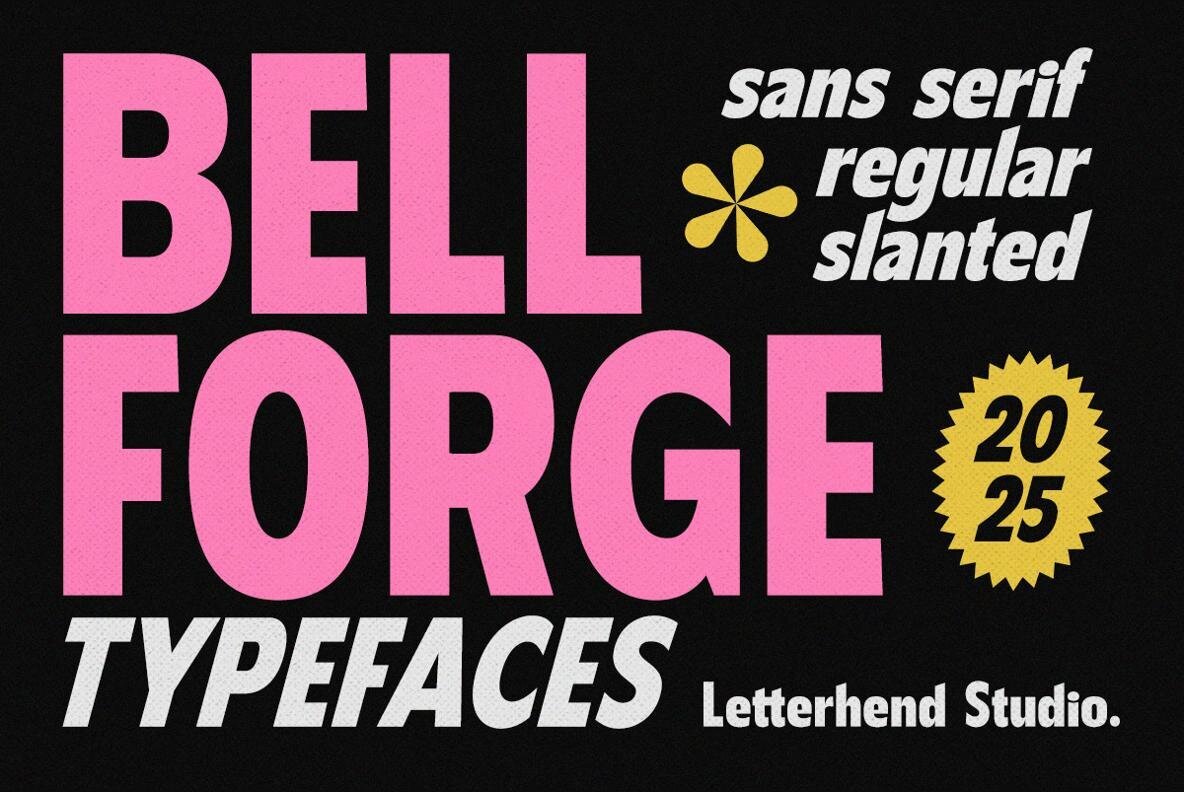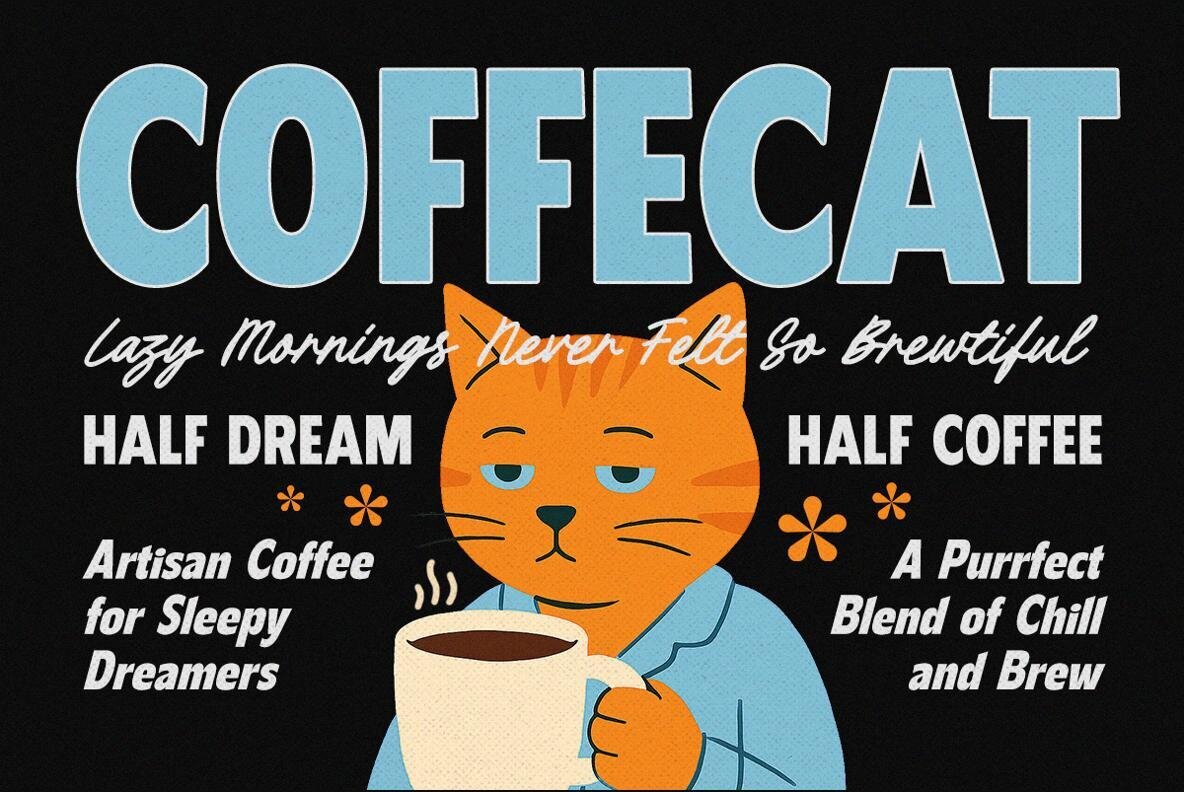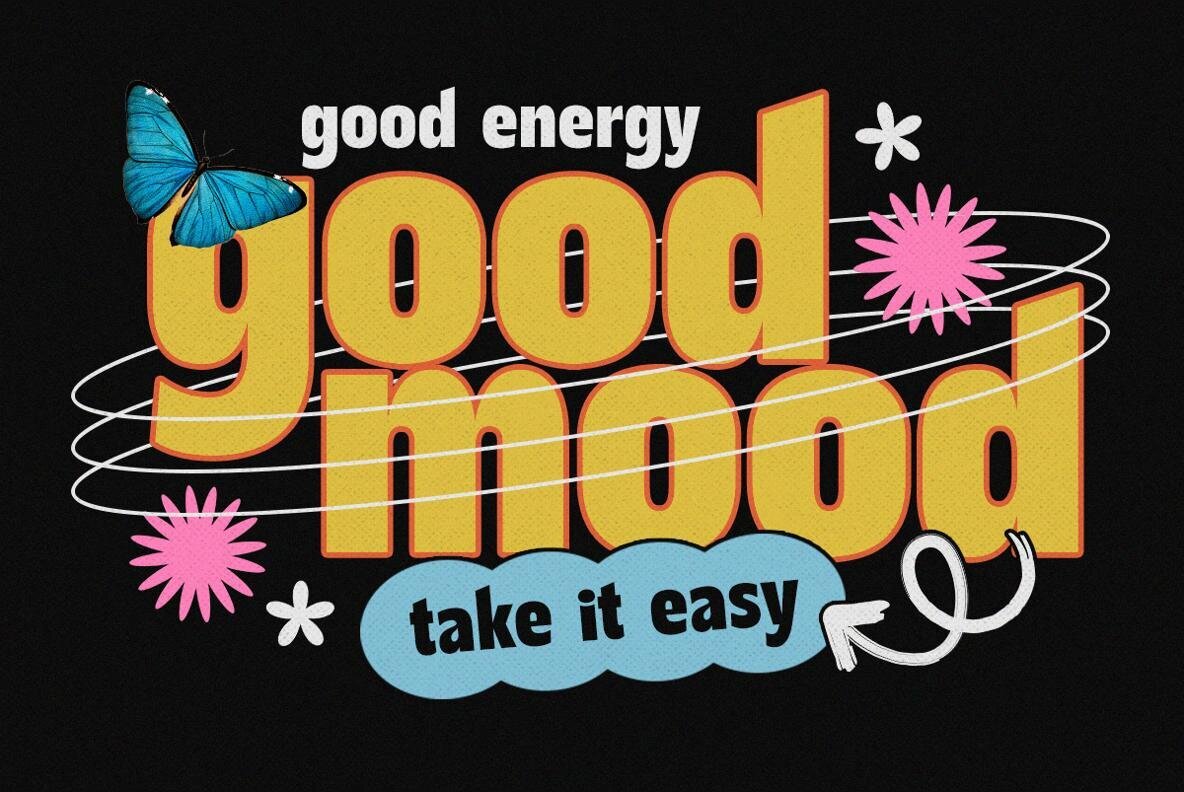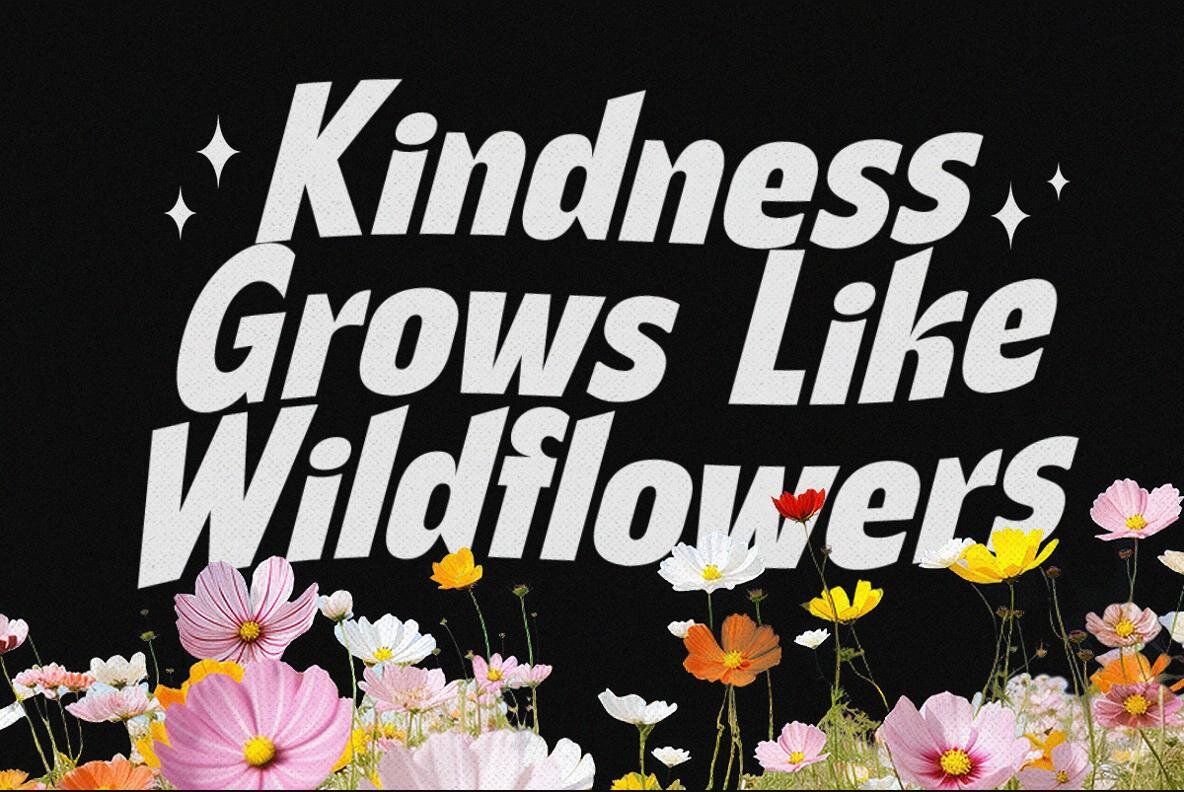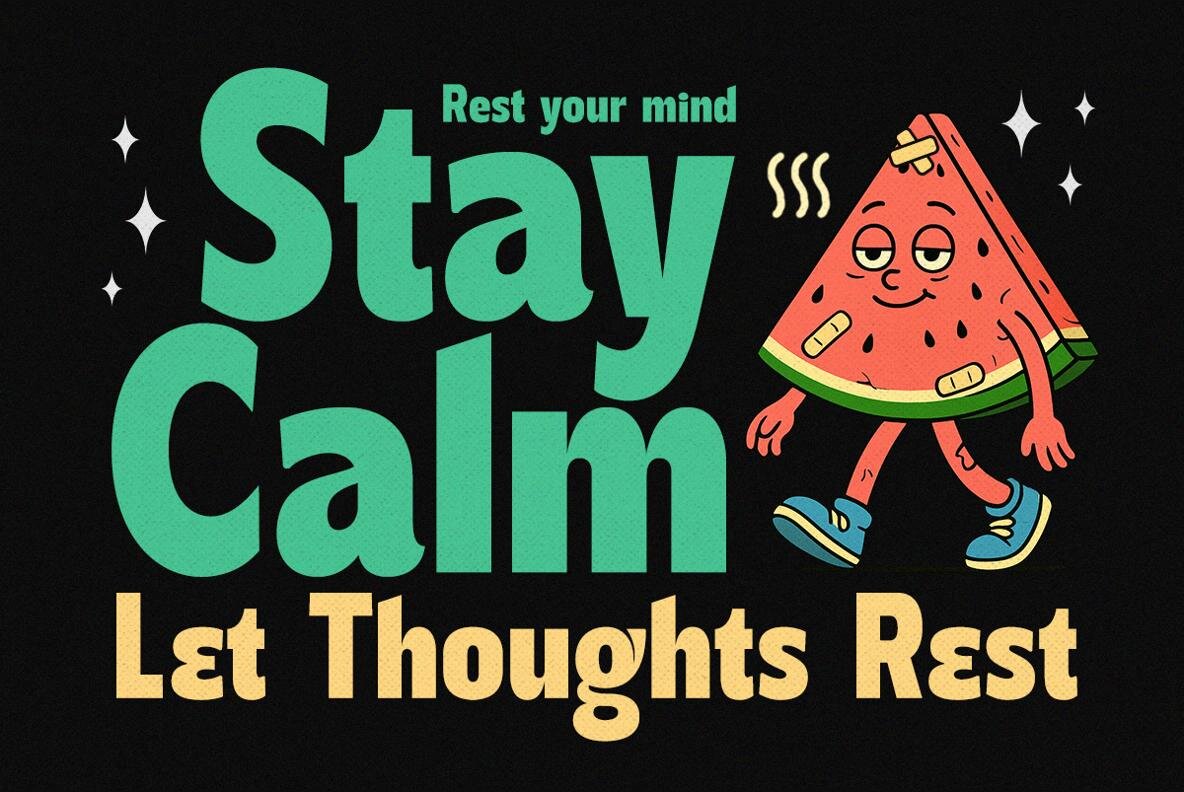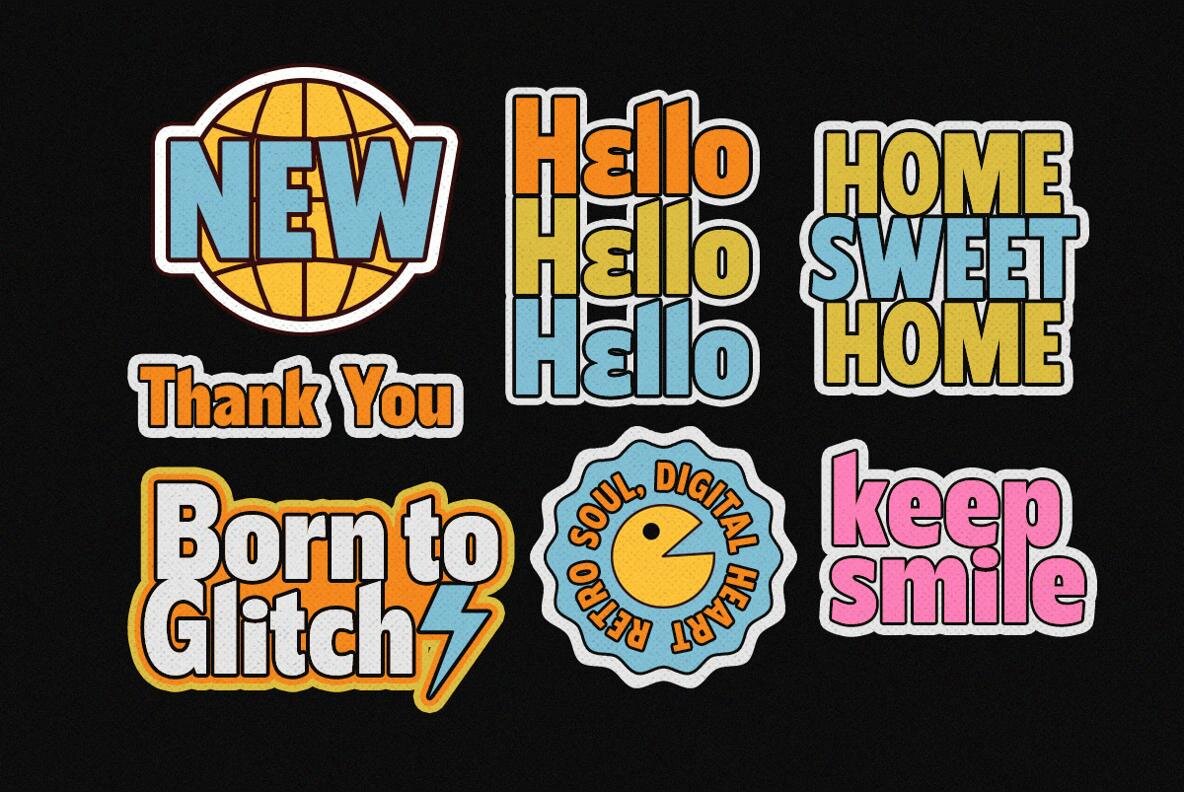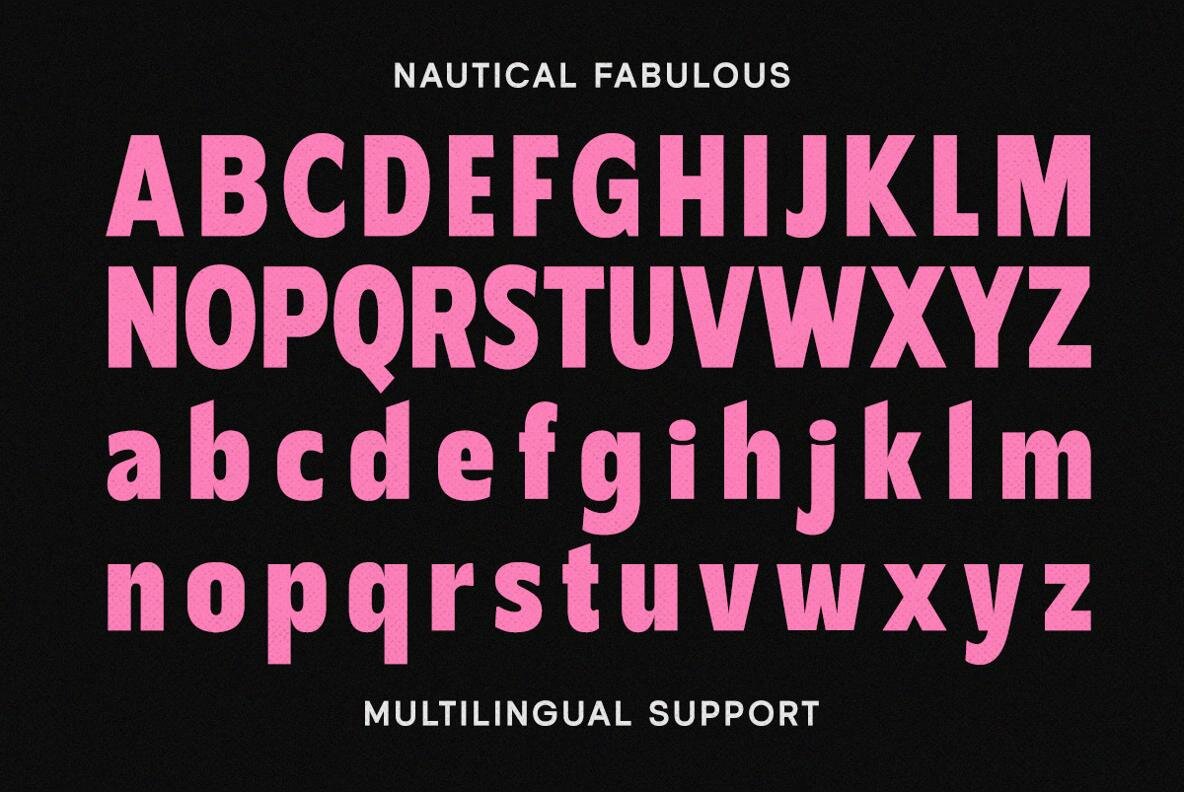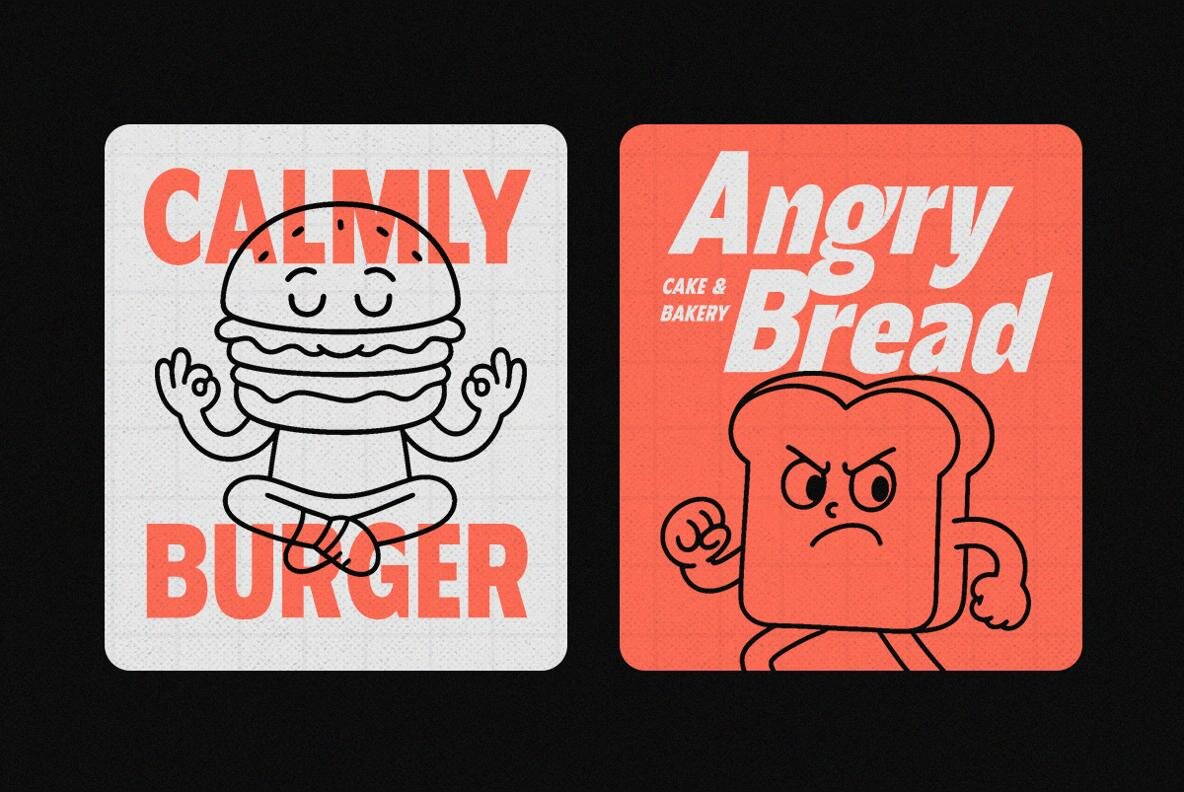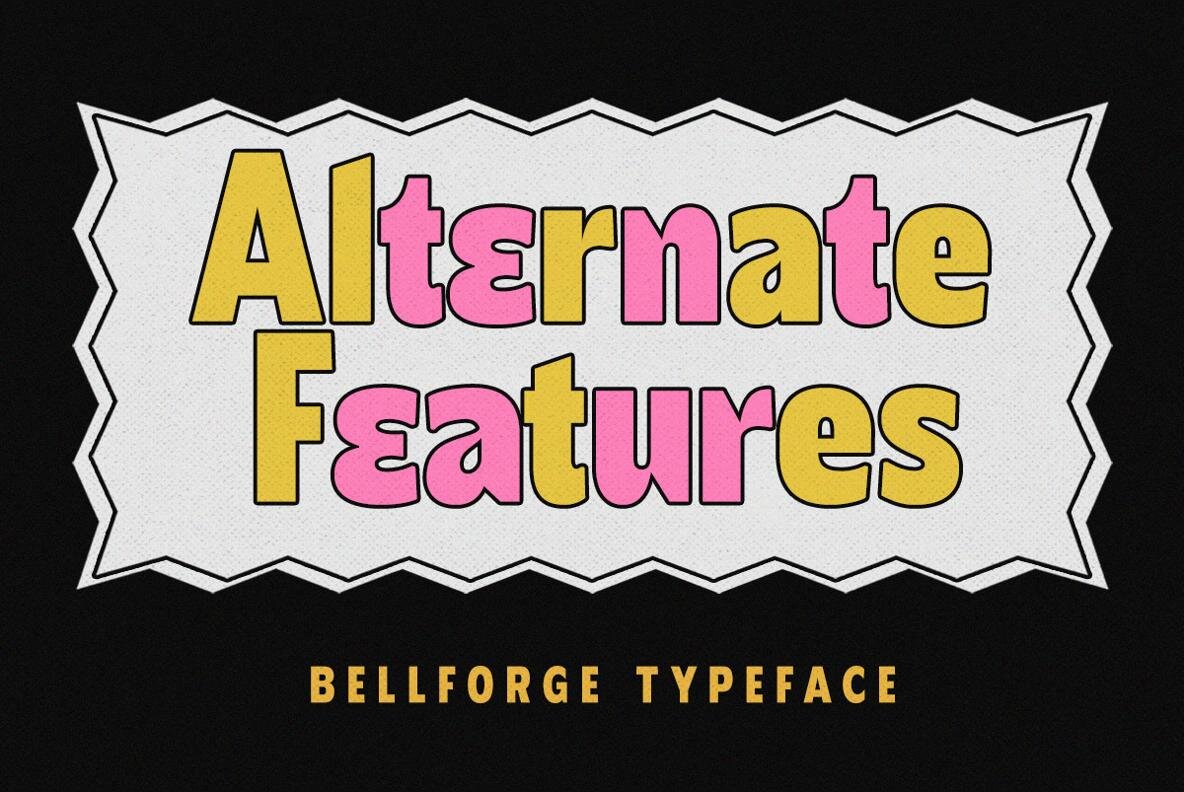
Belforge Font
Bellforge offers a striking sans serif typeface that marries modern simplicity with vintage charm. Its robust, geometric letterforms and precise edges are ideal for creating eye-catching headlines, compelling posters, and striking branding elements. Perfect for editorial layouts, Bellforge captures attention with its bold presence. Features:Bellforge: Bold Sans Serif Typeface with Vintage Flair